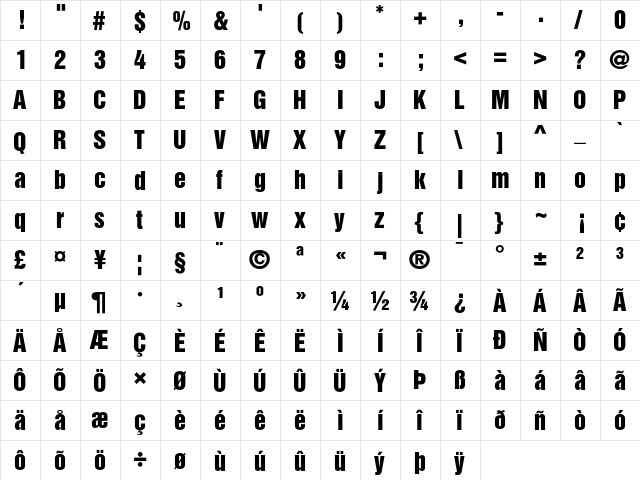
Helvetica Inserat Roman
Design Context for Helvetica Inserat Typeface
Helvetica Inserat takes a measured approach to typography — its balanced proportions and neutral character make it a reliable workhorse for both digital and print work.